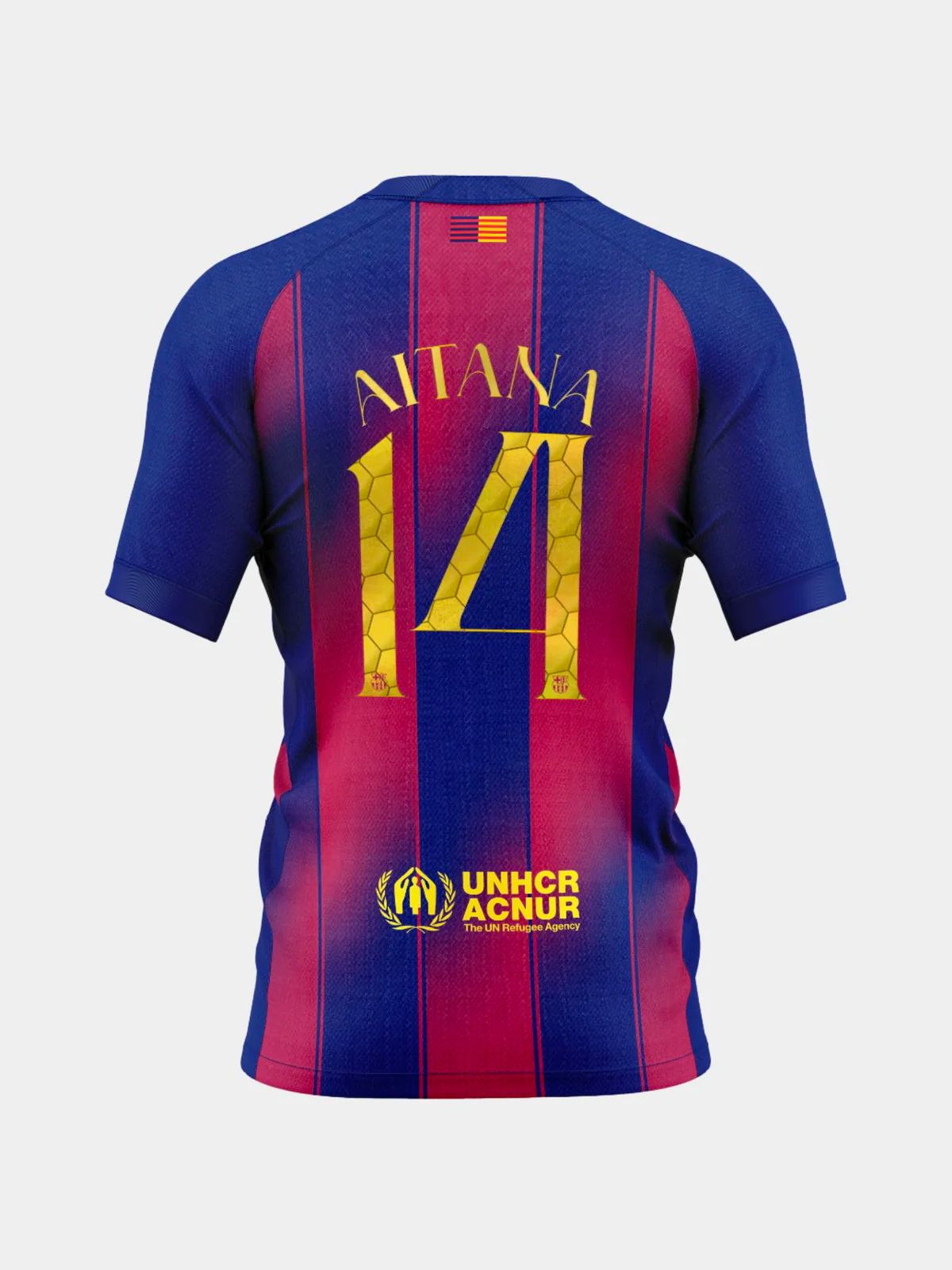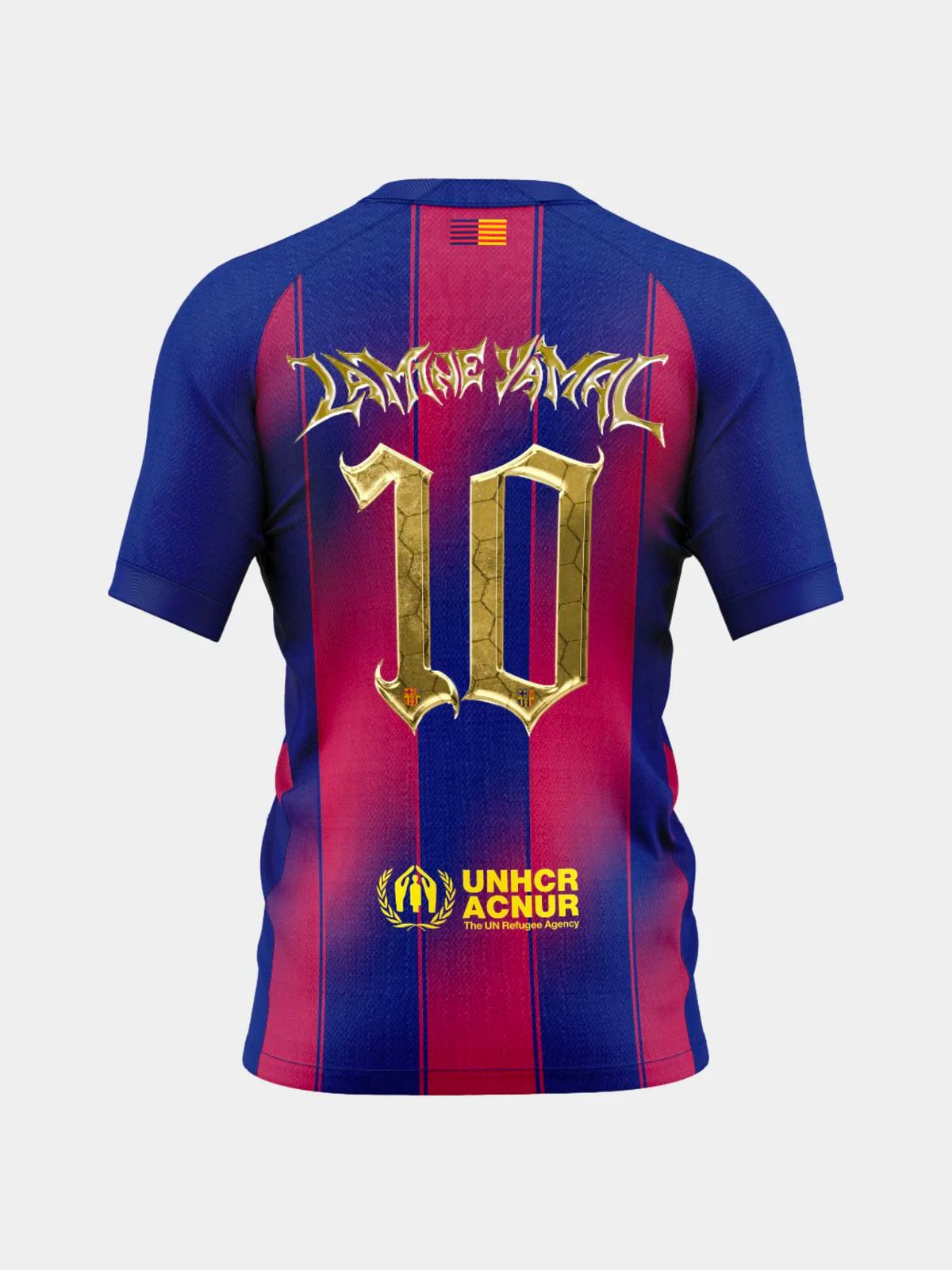
FC Barcelona has unveiled a special font in honour of Lamine Yamal and Aitana Bonmatí In honour of their Kopa Trophy and nBallon d'Or victories
Barcelona celebrated Aitana Bonmatí, winner of the Women's Ballon d'Or for the third consecutive edition, and Lamine Yamal, winner of the Kopa Trophy as the best young player for the 2024/25 season and second in the overall Men's Ballon d'Or ranking behind the 2025 edition winner Ousmane Dembélé. Specifically, the Blaugrana created a special font for both Bonmatí and Yamal that fans can use to customize their respective jerseys.
The font dedicated to Lamine Yamal follows the Nike graphics for the Scary Good campaign, with gold lettering inspired by demonic shapes, irregular strokes, and edges that resemble claws. A Gothic-style typography to enhance the visual impact of this collector's piece. The font dedicated to Aitana Bonmatí is much more elegant: thin lines without particular irregularities and some curves to lighten the visual impact so that the Spanish player's name is clearly visible. Number 14, as well as Yamal's number 10, feature a hexagon pattern reminiscent of the Ballon d'Or template.